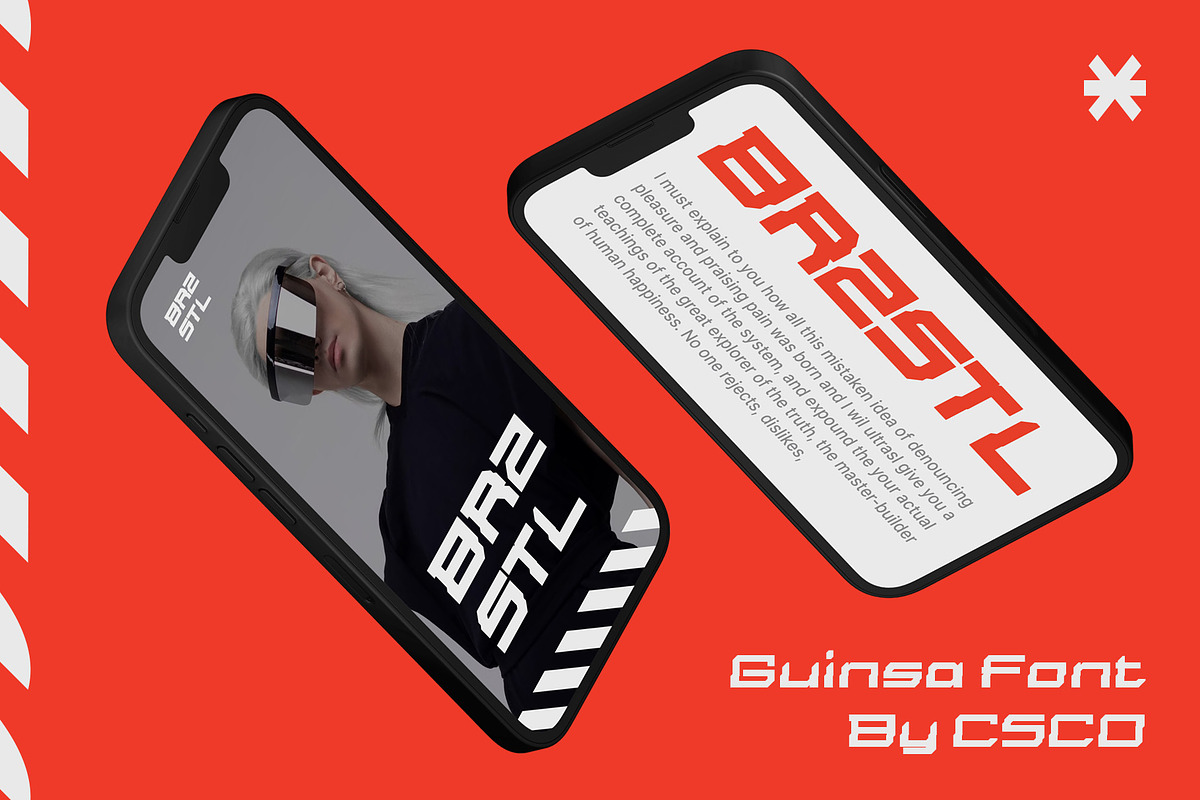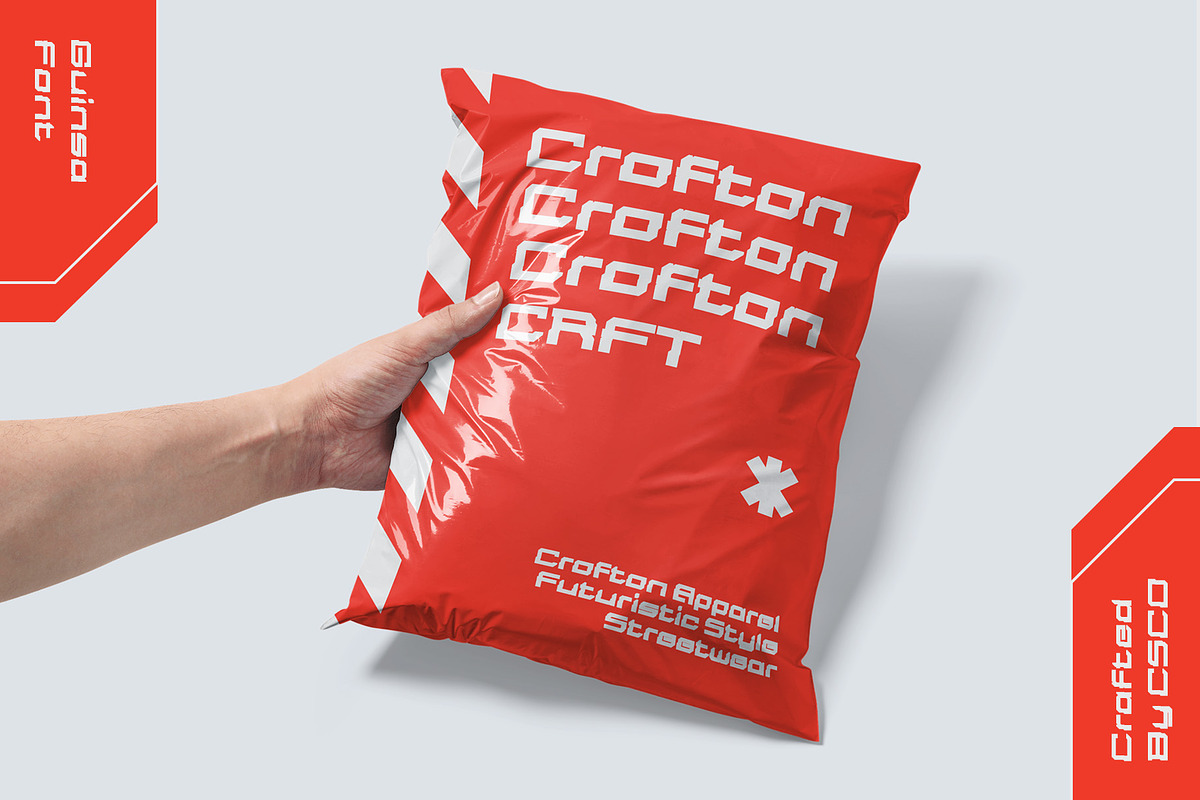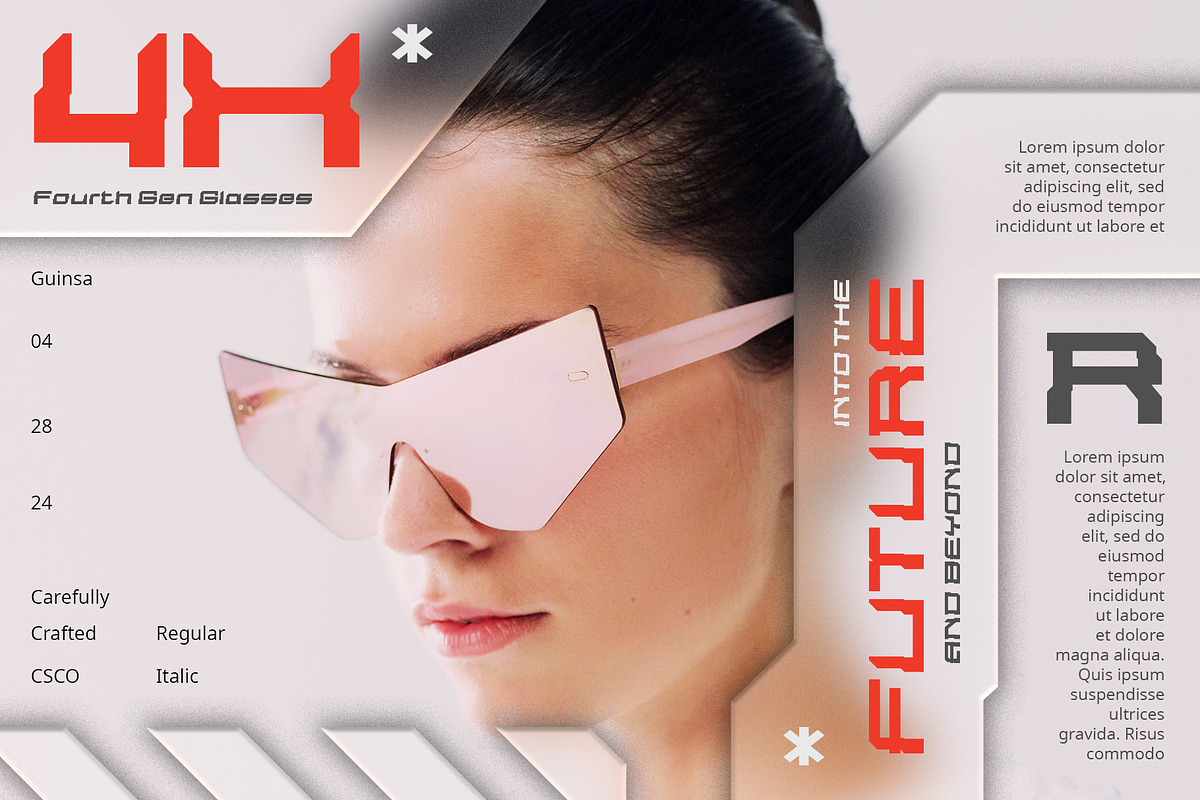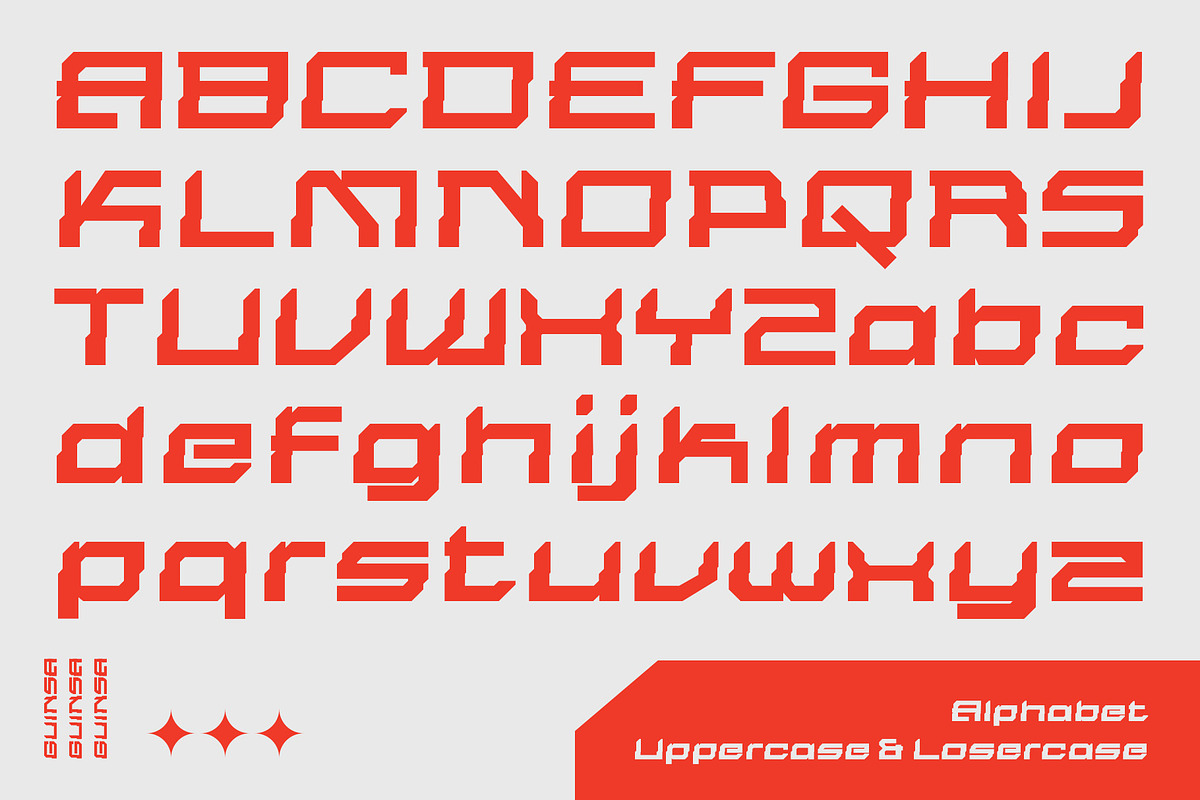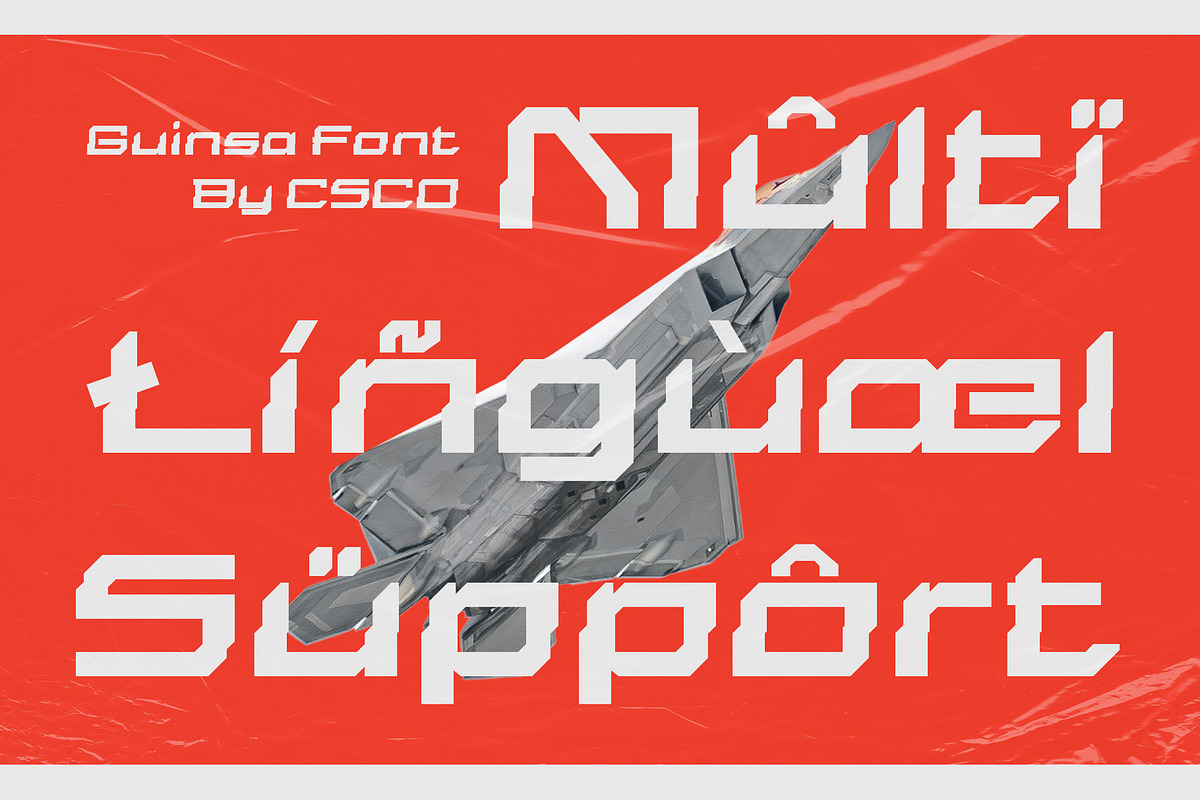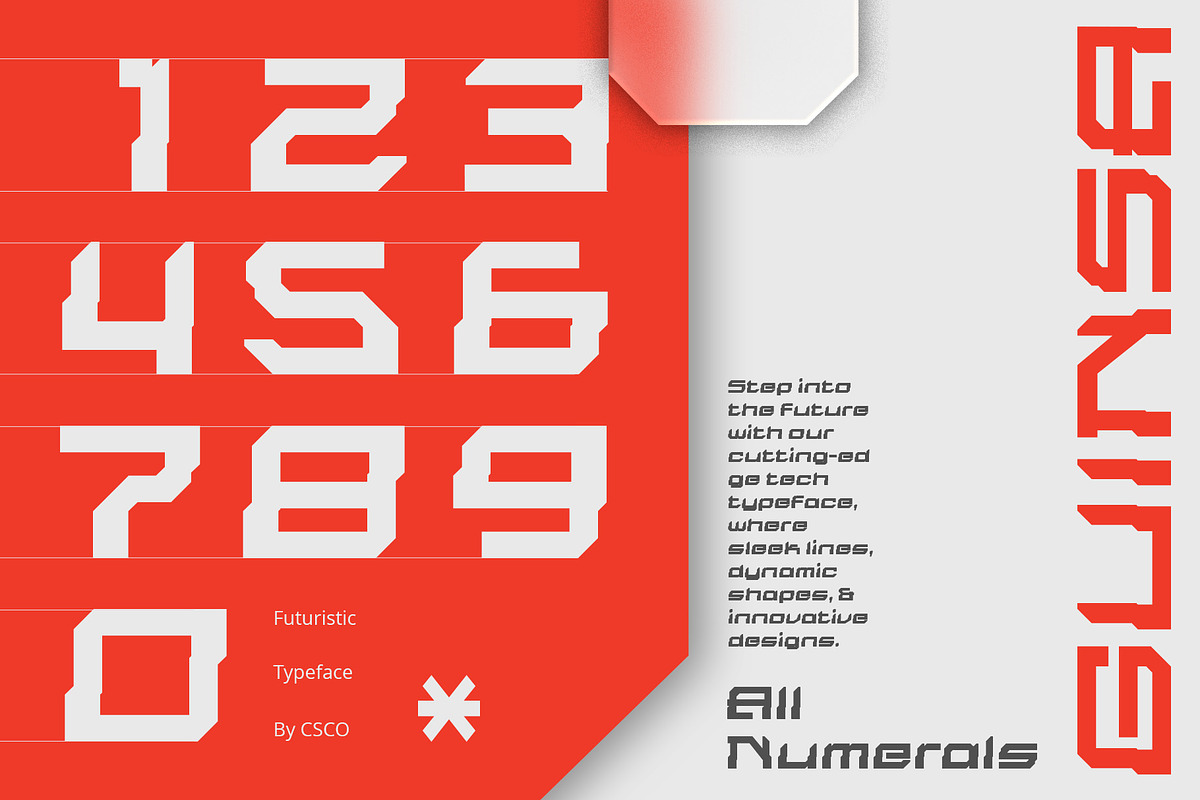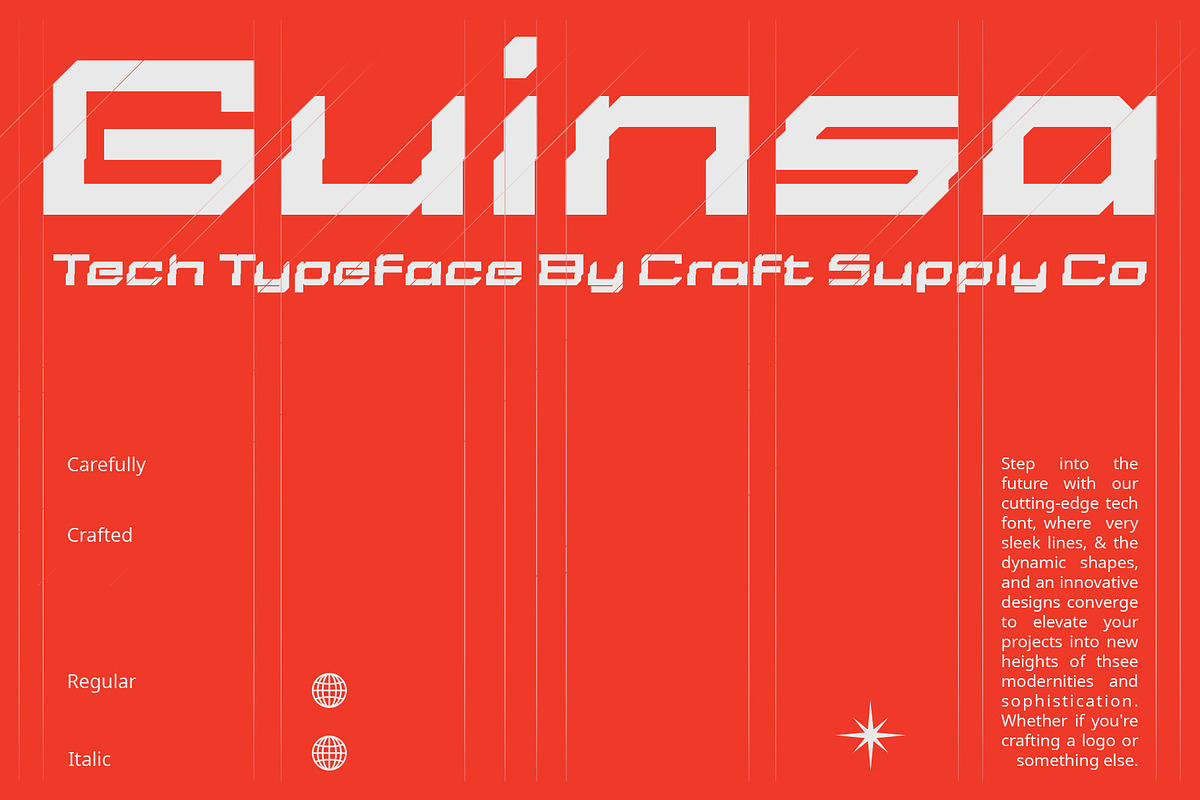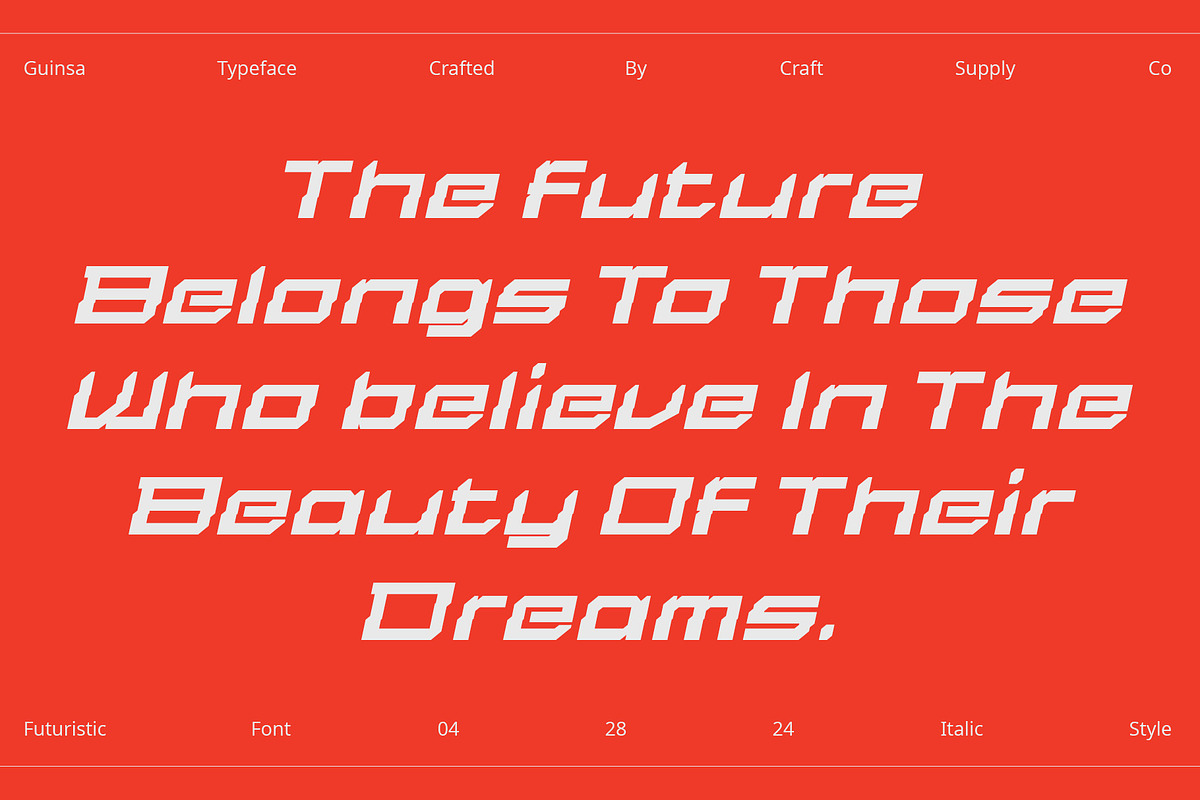
Guinsa – Futuristic Font
Guinsa: Embracing the Future in Futuristic Display Font
A Glimpse into Tomorrow Guinsa offers a futuristic display font that embodies modern geometric aesthetics, inspired by visions of the future.
Sleek and Geometric Design With its sleek lines and geometric shapes, This font presents a cutting-edge design that reflects the essence of modernity.
Inspired by Future Innovations Guinsa draws inspiration from future innovations, evoking a sense of progress and advancement in its design.
Perfect for Forward-Thinking Designs Ideal for forward-thinking designs, This font is well-suited for projects that seek to convey a sense of futurism and innovation.
Summary: Guinsa – A Visionary Typeface for Tomorrow This font is a futuristic display font characterized by sleek geometric design, inspired by the possibilities of tomorrow. It is perfect for projects that embrace forward-thinking aesthetics and seek to convey a sense of modernity and innovation.